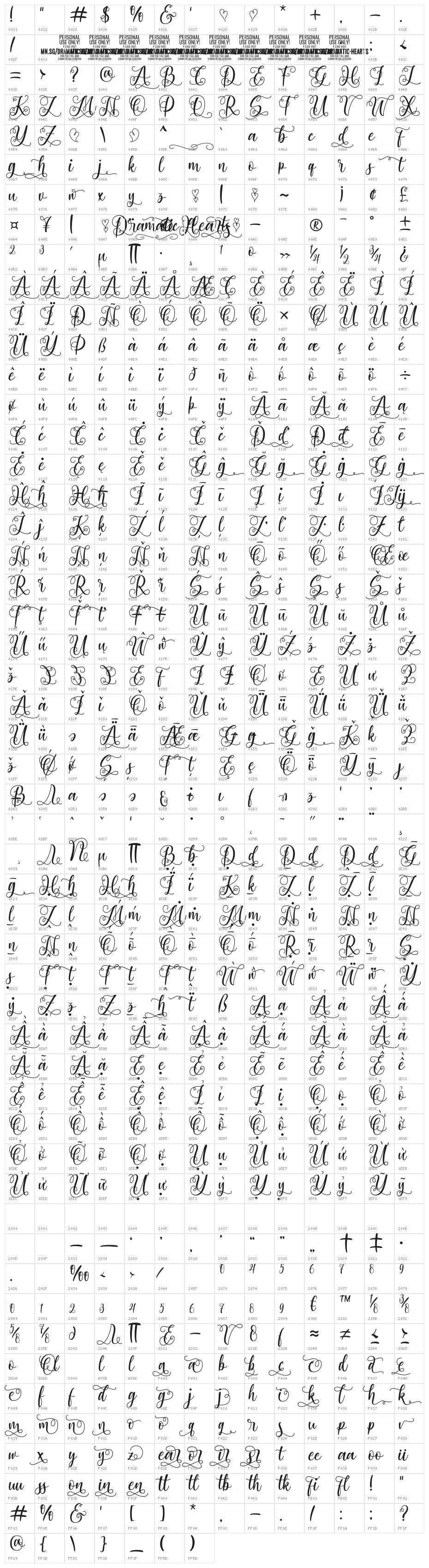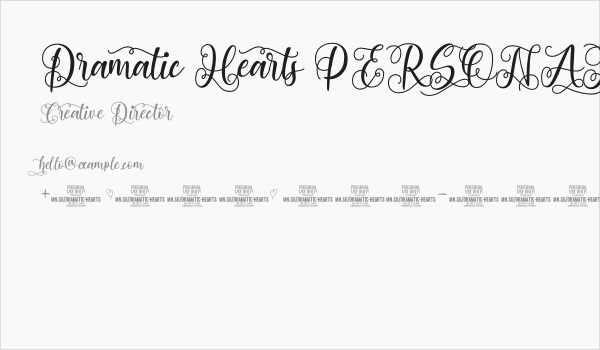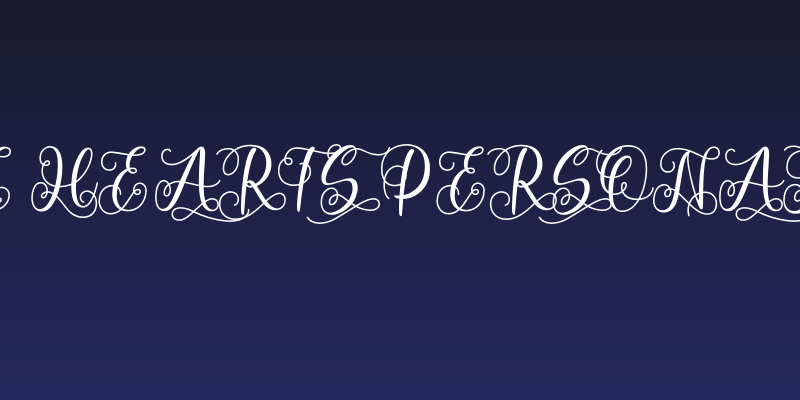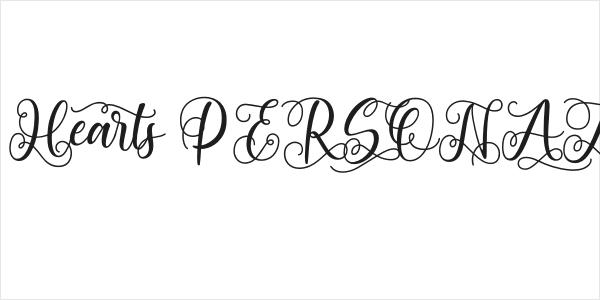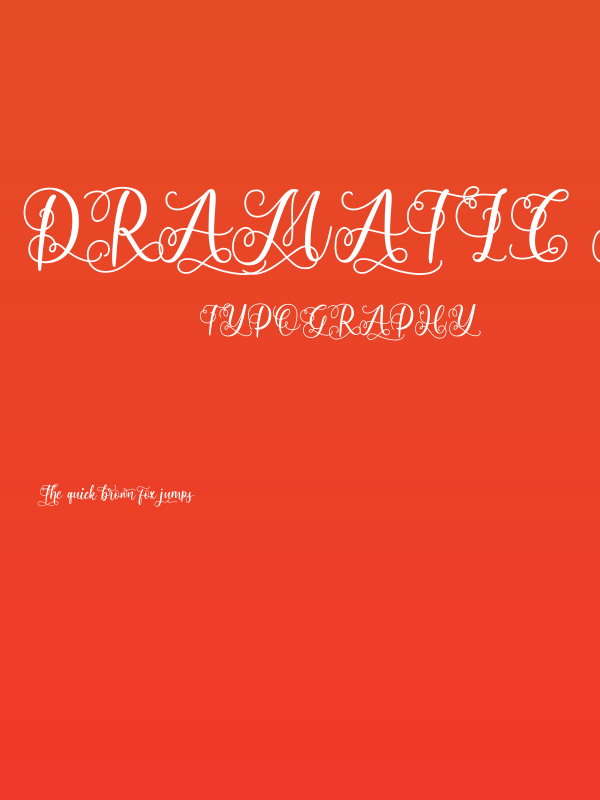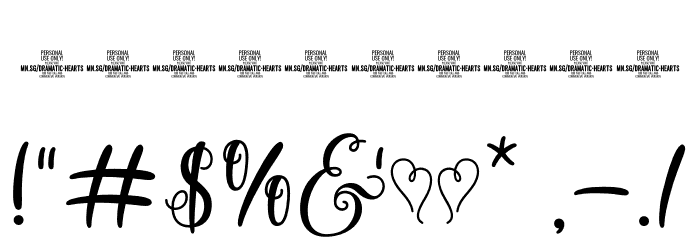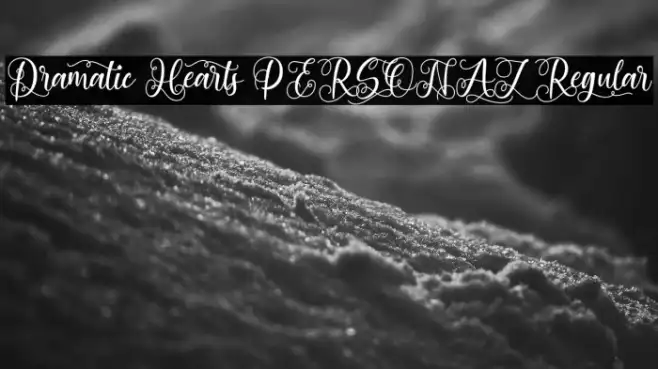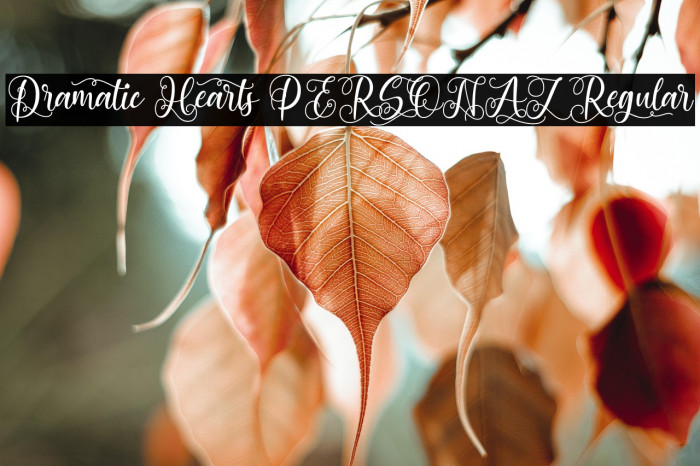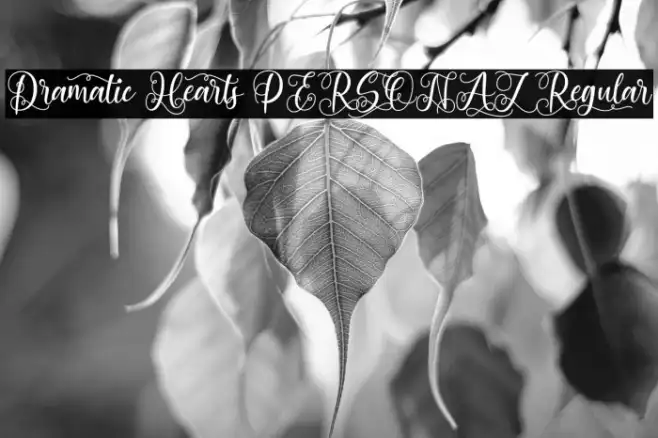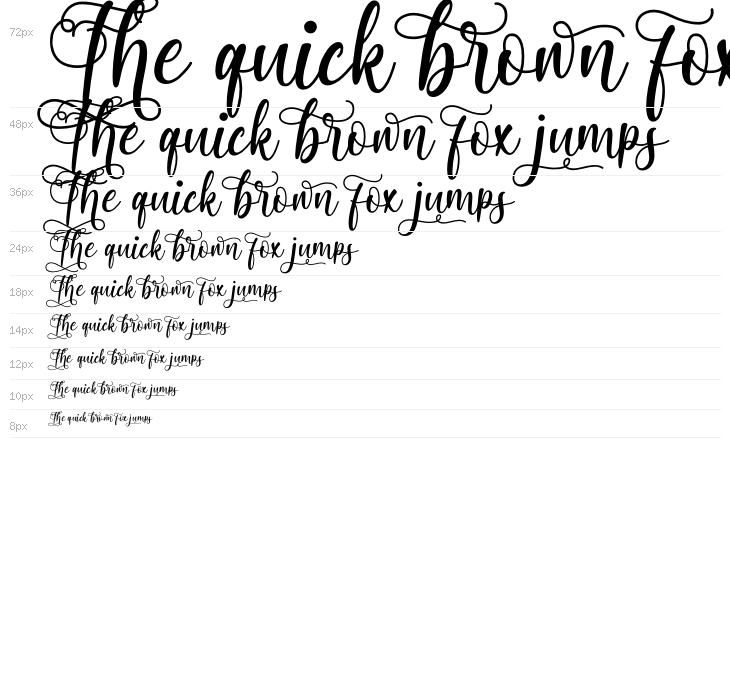
Dramatic Hearts PERSONAL Regular Font
Dramatic Hearts PERSONAL Regular Description
This font features an elaborate and decorative script style, characterized by intricate swirls and flourishes that extend from each letter. The uppercase letters are particularly ornate, with loops and curves that create a sense of elegance and sophistication. The lowercase letters maintain a fluid and connected appearance, enhancing the script's cohesive look. The special characters, including punctuation and symbols, are designed to match the font's overall decorative theme, adding a playful yet elegant touch. This font is ideal for projects that require a romantic or whimsical aesthetic, such as wedding invitations, greeting cards, or branding for luxury products.
| Proposed Projects | Wedding invitations, luxury branding, greeting cards, decorative posters. |